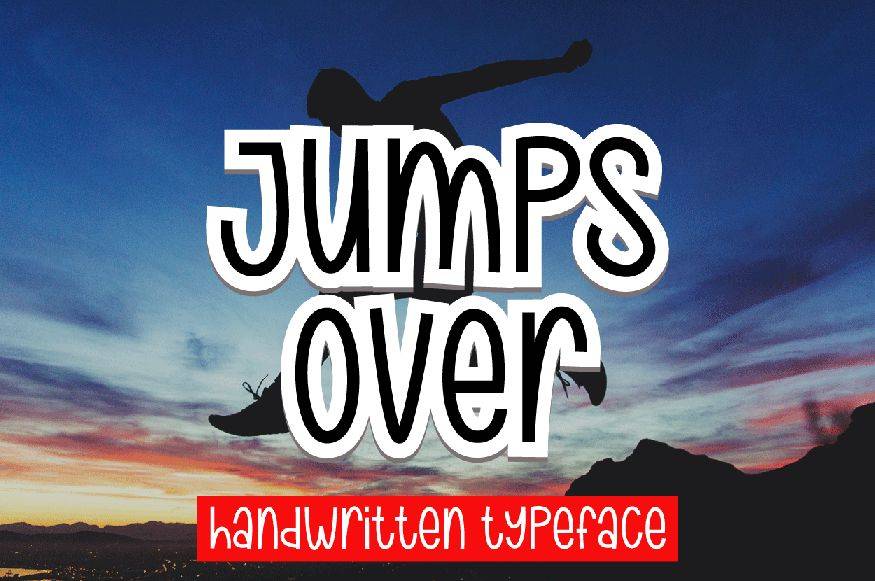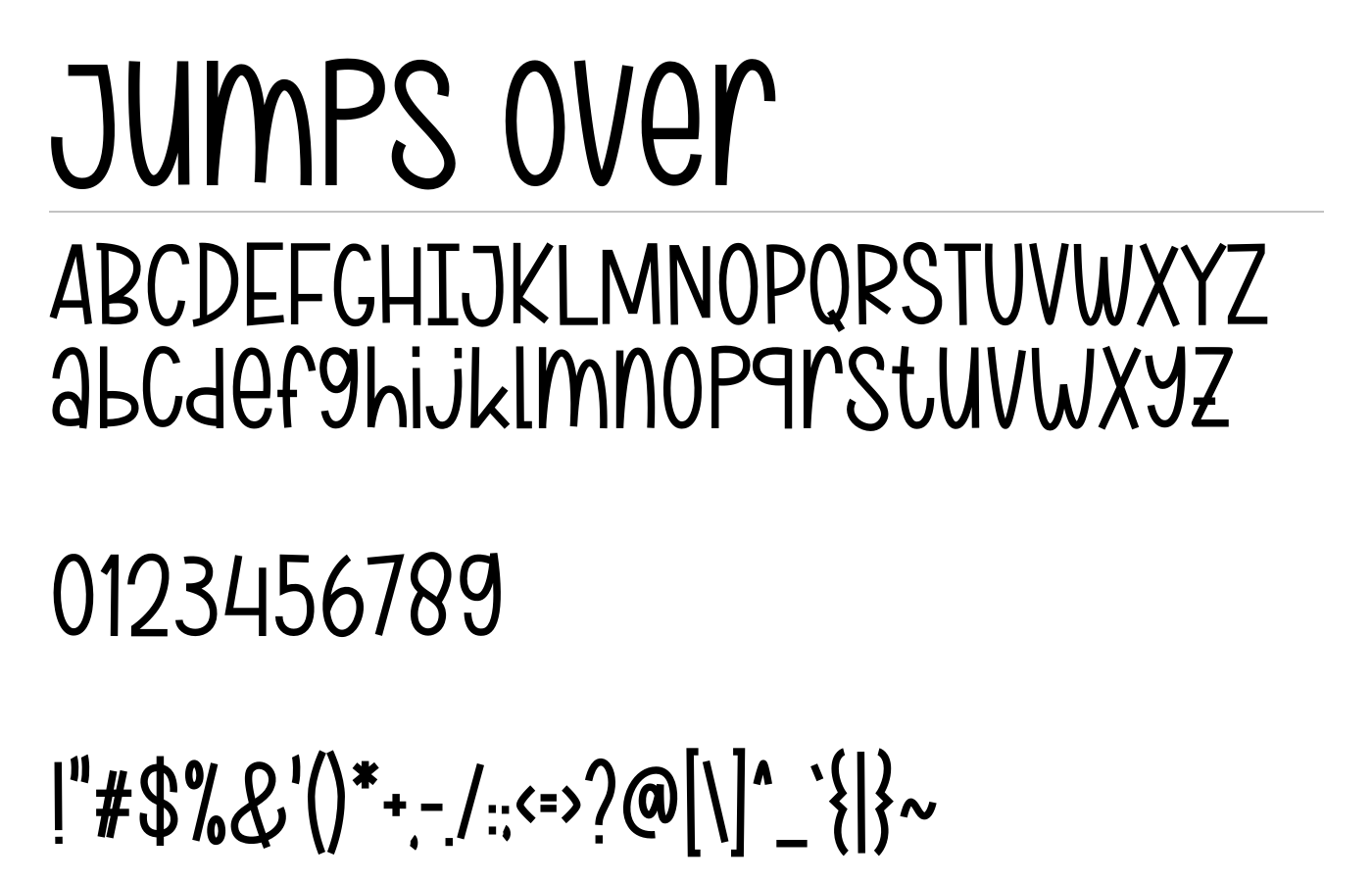
Jumps Over is a playful and casual sans serif font with narrow, tall letterforms and a hand-drawn feel. Its uneven strokes and quirky character shapes give it a friendly, approachable personality, making it ideal for informal designs like children’s books, greeting cards, and creative branding. This font works best in headlines and display uses where a fun, unique vibe is desired.
Jumps Over Font
About Jumps Over Font
| Font family | Jumps Over Font |
| Designer | letter art studio |